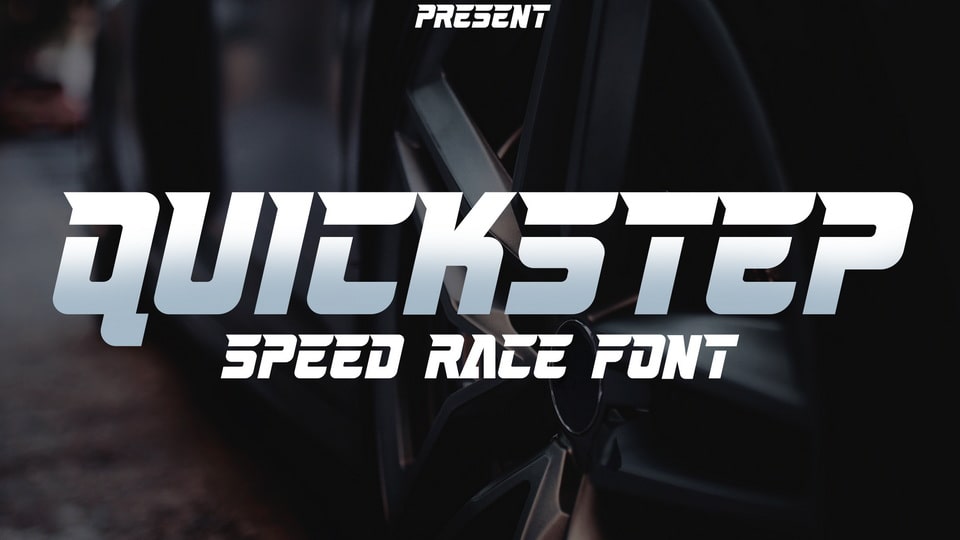
Download Quickstep font, a display typeface that is perfect for capturing the speed and energy of a racing game or action-packed movie. Quickstep font is designed to make a statement, with bold, modern lines that demand attention.